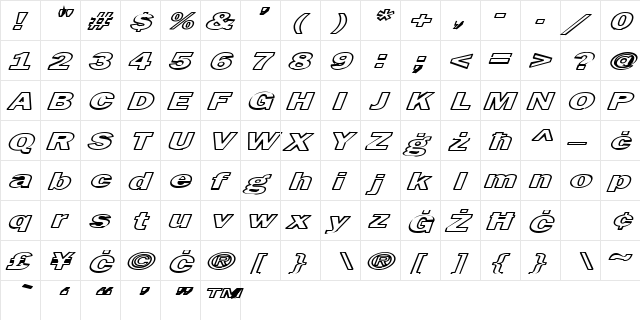
MaltfrankGothicHeavy HE Bold Italic
Design Context for MaltfrankGothicHeavy HE Typeface
MaltfrankGothicHeavy HE has the quiet confidence of well-executed sans-serif typography: versatile, unobtrusive, and dependable at any size. The dynamic lean of this cut emphasises speed and emphasis in any layout. The heavy weight commands attention and anchors typographic hierarchies.
Well-suited to navigation labels, product packaging, and anywhere legibility at scale is essential.
Font Pairing: Use MaltfrankGothicHeavy HE for headlines alongside a lighter-weight sans or serif for body copy to establish clear visual hierarchy.
Pro Tip: Use MaltfrankGothicHeavy HE for UI labels, navigation, and short-form body copy where clean legibility is the priority.